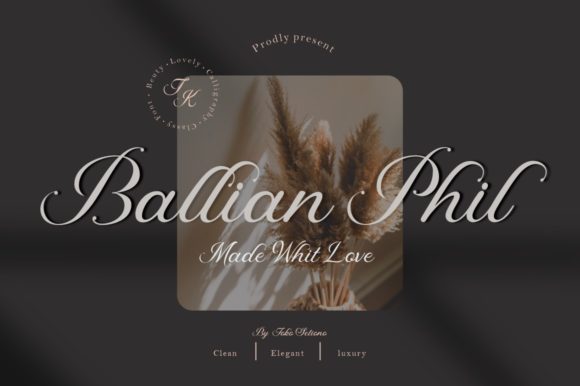
Unleash the Enchantment of Ballian Phill: A Handwritten Font Symphony for Your Creative Vision
Prepare to be captivated by the ethereal beauty of Ballian Phill, a script font that dances across your designs with an exquisite allure. Inspired by the timeless charm of hand-lettered artistry, this font possesses an undeniable warmth that transforms ordinary words into expressions of heartfelt emotion. With its graceful curves and flowing strokes, Ballian Phill carries an aura of romance and joviality that breathes life into your creative endeavors, turning them into genuine masterpieces.
Indulge in a World of Endless Possibilities, Where Creativity Blossoms Like Never Before
Let Ballian Phill guide you through the enchanting realm of artistic expression. Its versatility knows no bounds, allowing you to paint your words with an array of emotions, from the delicate brushstrokes of love letters to the bold declarations of marketing campaigns. Whether you seek to craft logos that speak volumes, designs that evoke nostalgia, or social media posts that captivate audiences, Ballian Phill is your steadfast companion, amplifying your vision with grace and finesse.
Discover the Enchanting Embrace of Ballian Phill: Your Gateway to a World of Design Delights
As you embark on your creative journey with Ballian Phill, prepare to witness a transformation unfold before your very eyes. Each letter dances across the page, carrying with it a story, a sentiment, a piece of your soul. Let your imagination soar as you weave words into visual masterpieces, crafting logos that leave an indelible mark, designs that spark conversations, and social media posts that ignite a chorus of praise.